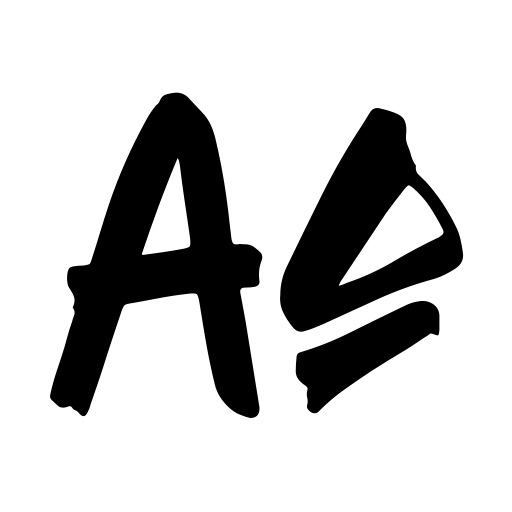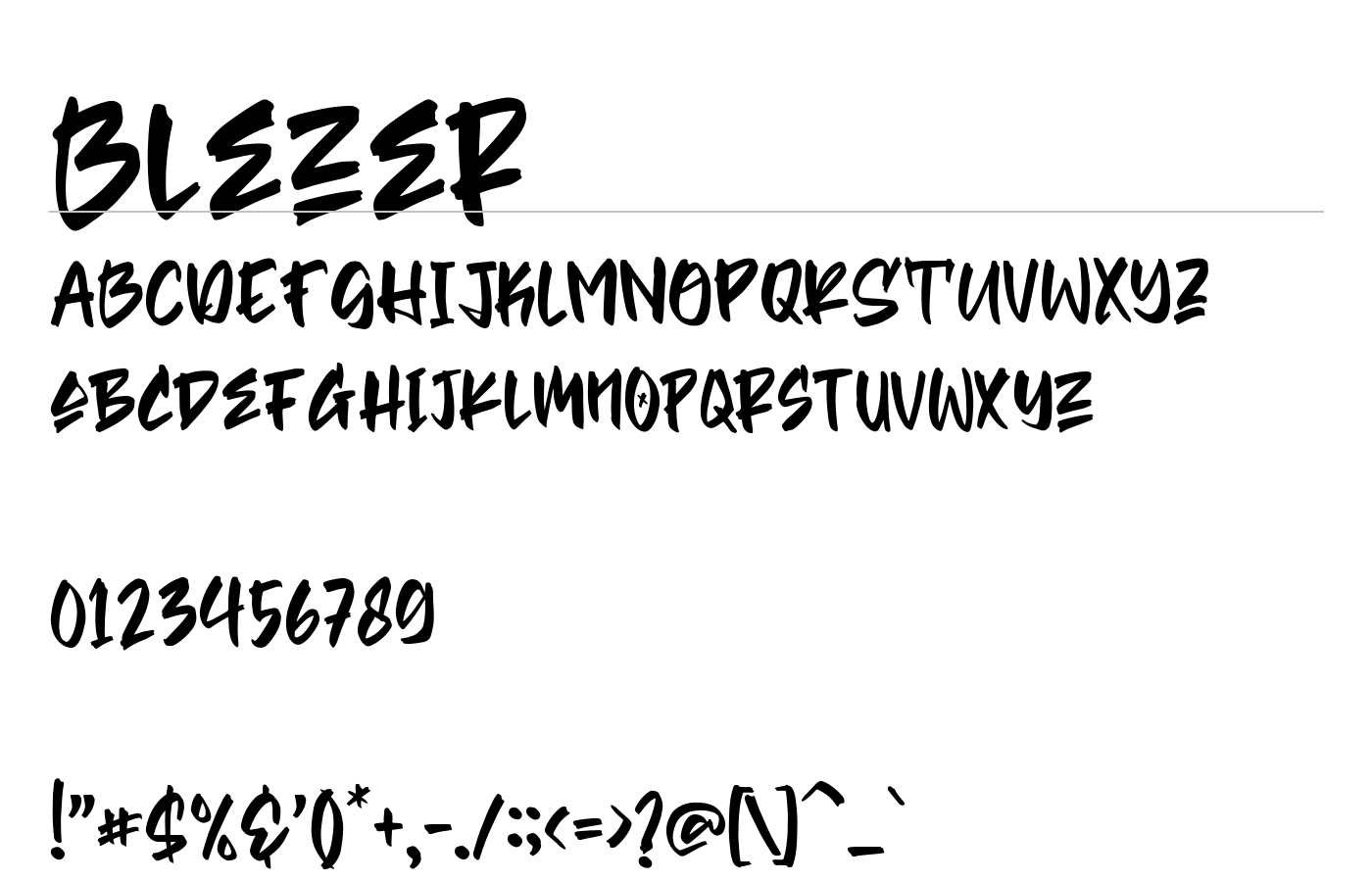
Blezer is a bold, energetic handwritten font with a casual, brush-stroke style that combines a modern, expressive feel with strong personality. Its irregular, dynamic letterforms and slightly condensed width make it perfect for attention-grabbing headlines, logos, and creative branding that want to convey a youthful, edgy, and approachable vibe. This font works well in designs that seek a lively and informal touch, ideal for projects in entertainment, streetwear, or any setting needing a spirited, hand-crafted look.
Blezer Font
About Blezer Font
| Font family | Blezer Font |